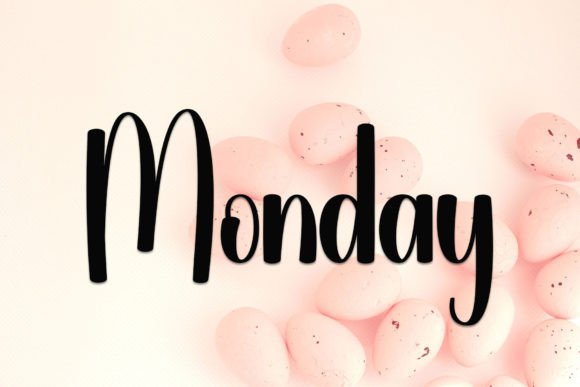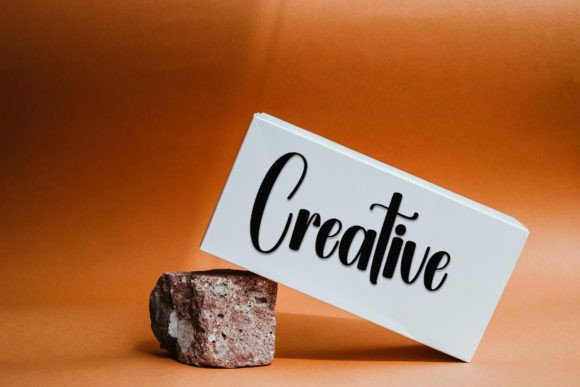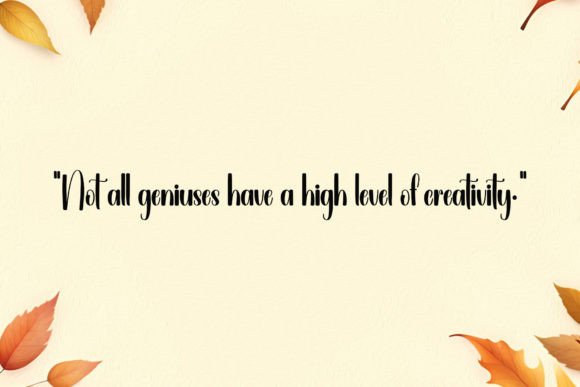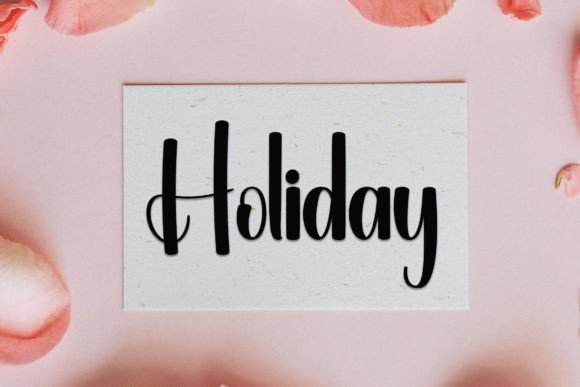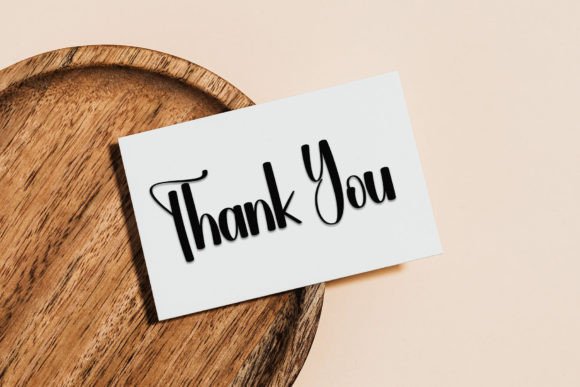
Discover the Elegance of Brother Font: A Timeless Handwritten Style for Your Design Projects
Are you on the hunt for a font that exudes elegance and sophistication? Look no further than the Brother Font, a neat and beautiful handwritten font that is sure to capture your heart. With its incredibly distinct and timeless style, this font is perfect for designers and crafters looking to add a touch of refinement to their projects.
The Characteristics of Brother Font
Brother Font is a handwritten font that boasts an elegant touch, making it ideal for a wide range of design applications. Its unique characteristics include:
- Fluid strokes: The font features smooth, flowing strokes that give it a natural and organic feel.
- Intricate details: The font’s intricate details, such as the subtle variations in line width and the elegant flourishes, add to its sophistication and charm.
- Classic style: The Brother Font has a timeless quality that makes it suitable for a variety of design projects, from modern and trendy to traditional and vintage.
Why Choose Brother Font for Your Design Projects?
There are many reasons why Brother Font is an excellent choice for designers and crafters. Here are just a few:
- Versatility: The font’s versatility makes it suitable for a wide range of design applications, including logos, branding, packaging, and more.
- Elegance: The font’s elegant style makes it perfect for projects that require a touch of sophistication and refinement.
- Readability: The font is highly readable, even at small sizes, making it ideal for body text and captions.
- Uniqueness: The font’s unique style ensures that your designs will stand out from the crowd and leave a lasting impression.
How to Use Brother Font in Your Design Projects
Using Brother Font in your design projects is easy. Here are a few tips to get you started:
- Pair it with other fonts: Brother Font pairs well with other fonts, such as sans-serif fonts, to create a striking contrast.
- Experiment with colors: The font looks great in a variety of colors, from bold and bright to muted and pastel.
- Use it for headlines and titles: The font’s elegant style makes it perfect for headlines and titles, where you want to make a statement.
- Add a personal touch: Use Brother Font to add a personal touch to your designs, such as in a handwritten note or a quote.
Brother Font in the World of Design
Brother Font is not just a font, it’s a design statement. It’s perfect for designers and crafters who want to add a touch of elegance and sophistication to their projects. With its timeless style and versatility, Brother Font is sure to become a staple in your design toolkit.
In conclusion, Brother Font is a beautiful and elegant handwritten font that is perfect for designers and crafters looking to add a touch of refinement to their projects. With its unique characteristics, versatility, and readability, Brother Font is sure to become a favorite in your design arsenal. So why wait? Fall in love with Brother Font and use it to create spectacular designs that will leave a lasting impression!
- Brother Font is a neat and beautiful handwritten font with an elegant touch.
- The font features fluid strokes, intricate details, and a classic style.
- Brother Font is versatile, elegant, readable, and unique.
- The font is perfect for a wide range of design applications, including logos, branding, packaging, and more.